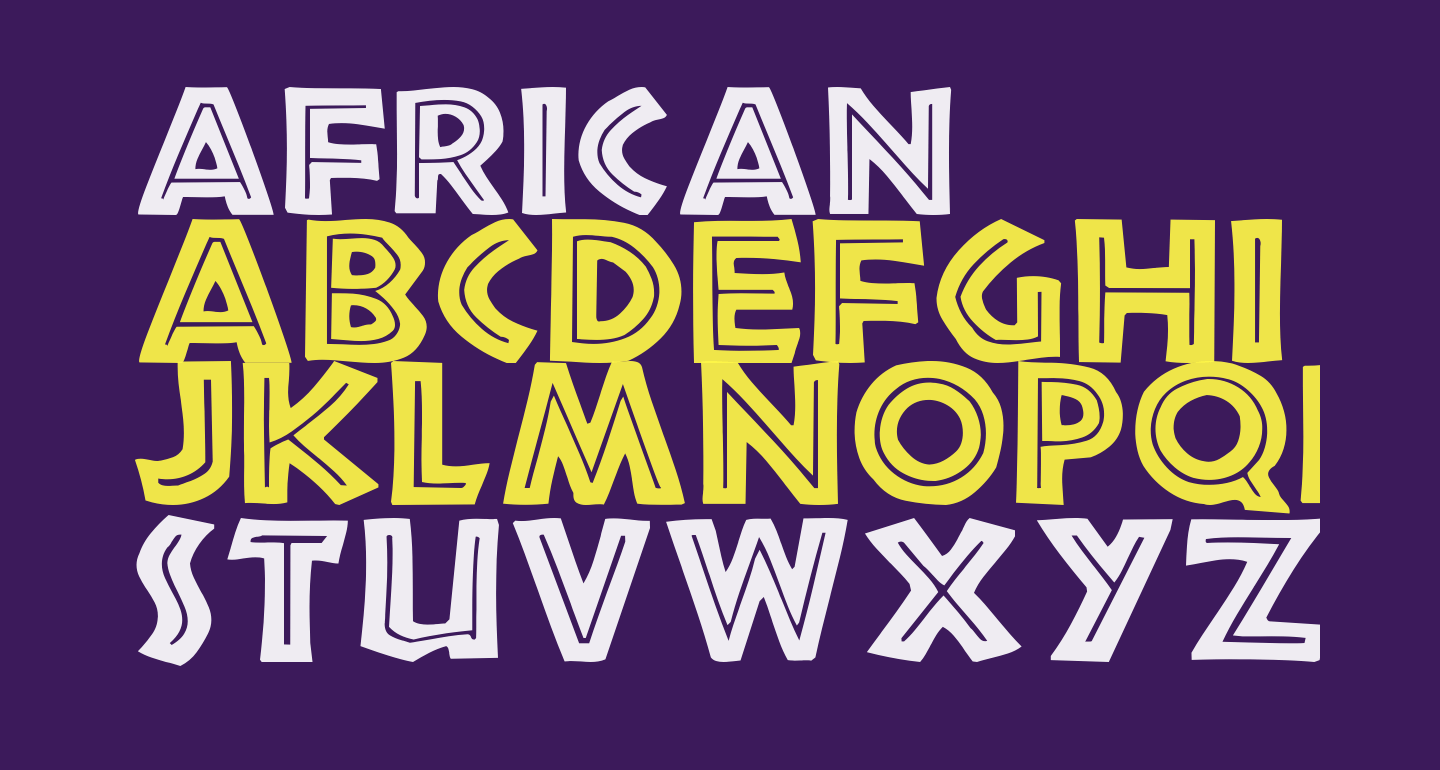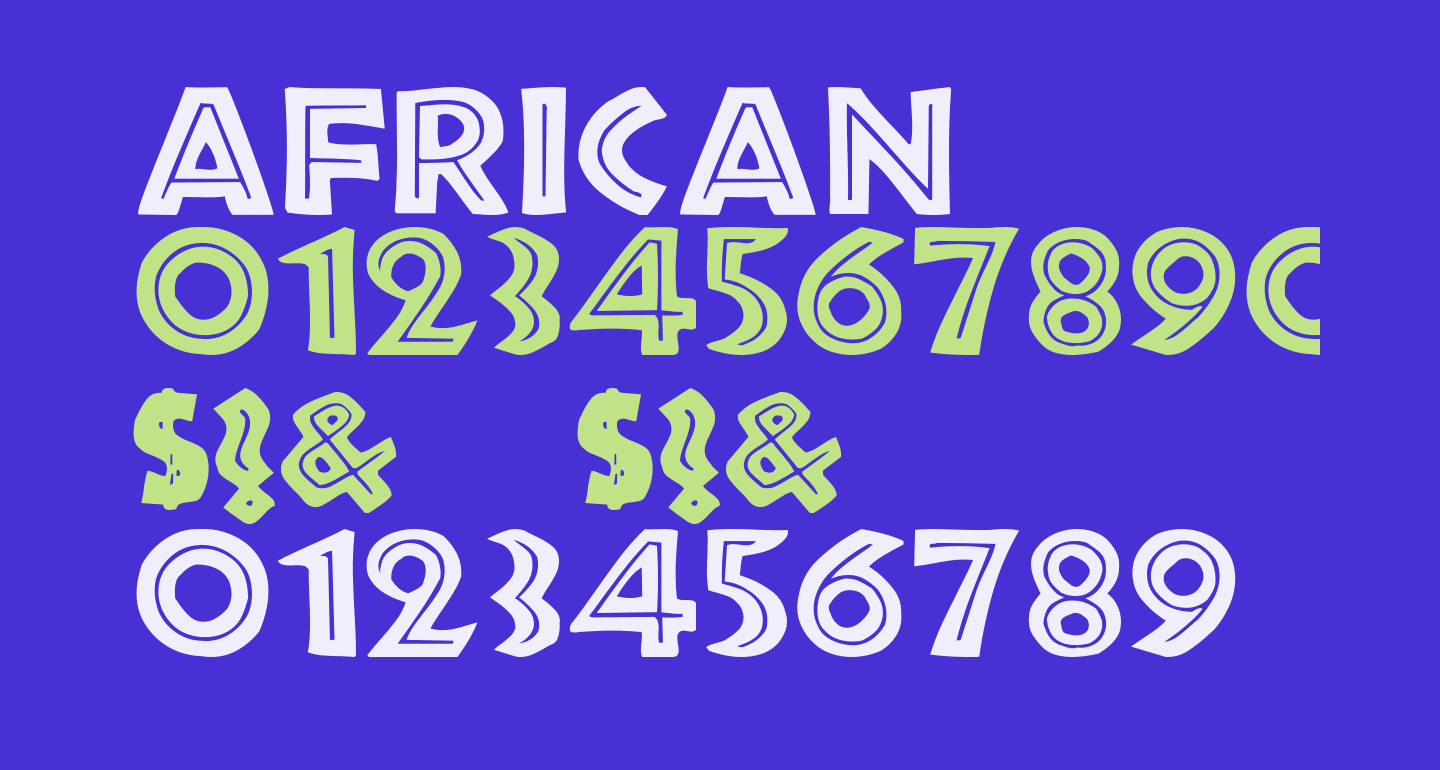
African Font Free Download | Fontswan Home • Display • Tribal African Font Is A Fun, Decorative, And Unique Display Typeface With Ethnic/Tribal Style.